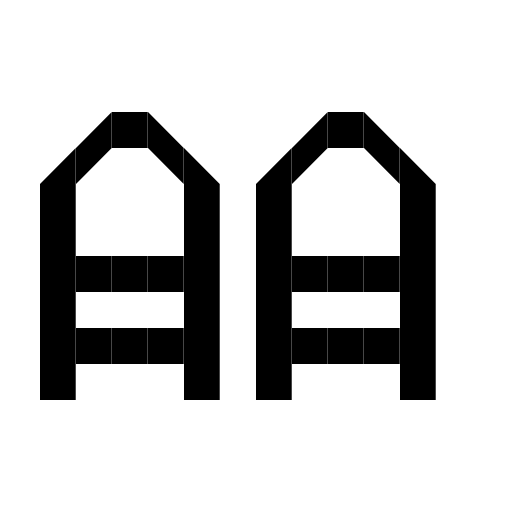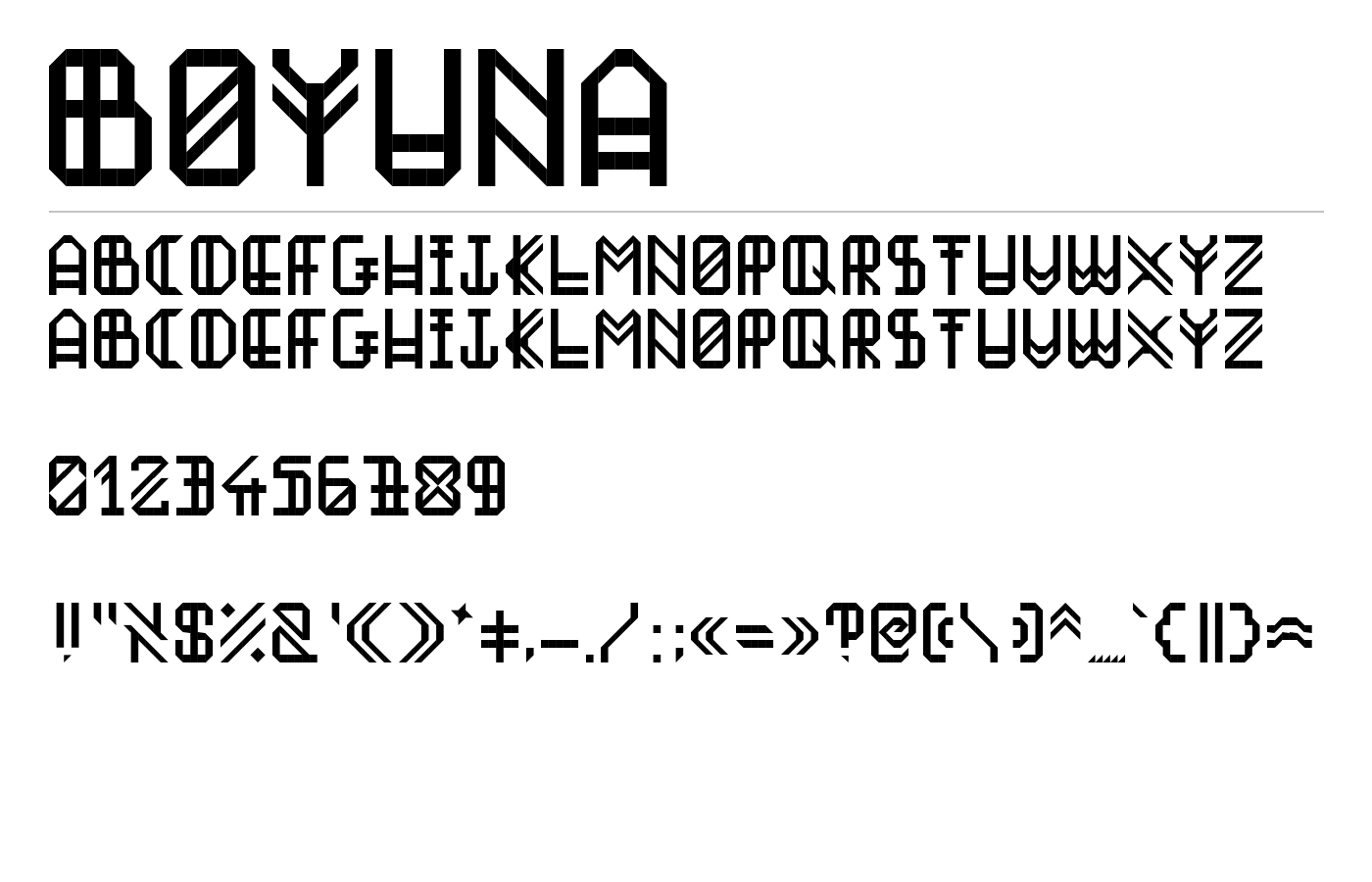
Boyuna is a bold, geometric sans serif font with a strong, futuristic feel, featuring angular and blocky letterforms that create a striking visual impact. Its sharp, rigid lines and unique stylistic details make it ideal for modern branding, headlines, and display uses where a tech-savvy or avant-garde aesthetic is desired. This font works well in logos, posters, and digital media aiming to convey innovation and strength.
Boyuna Font
About Boyuna Font